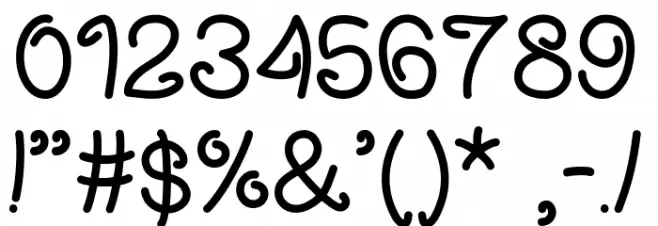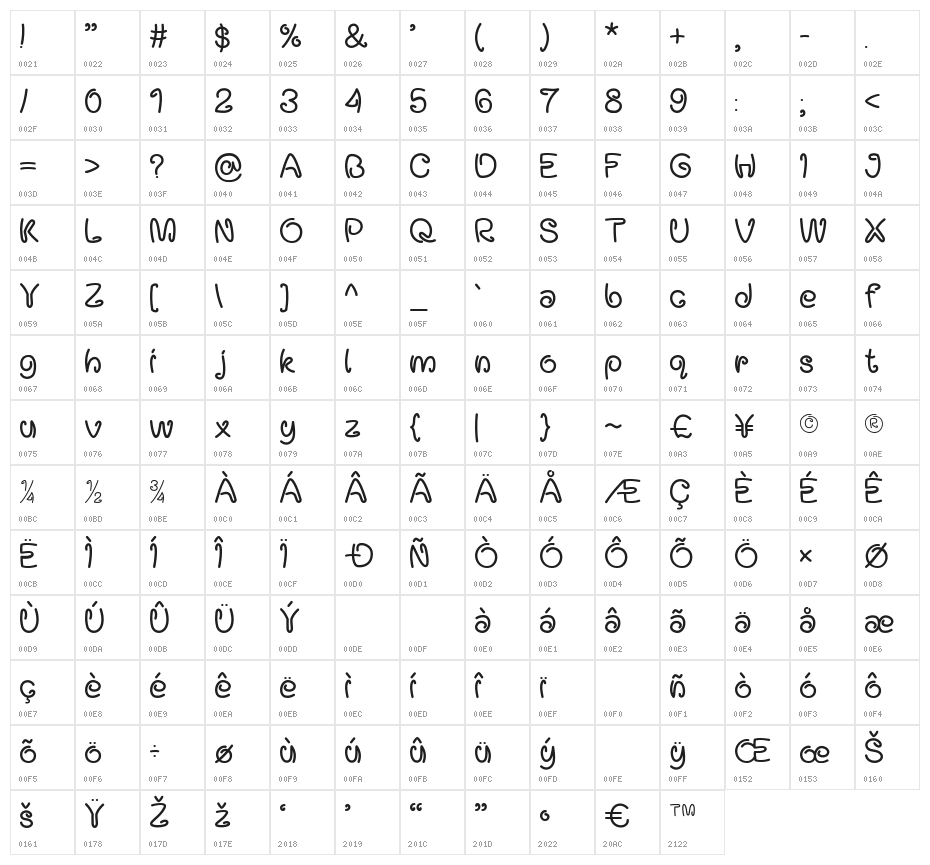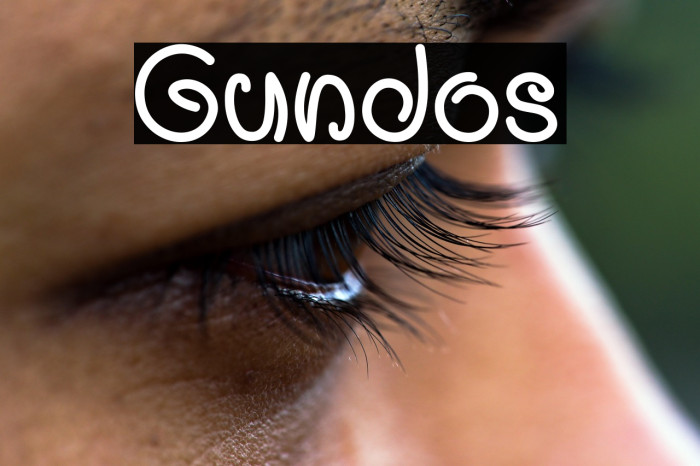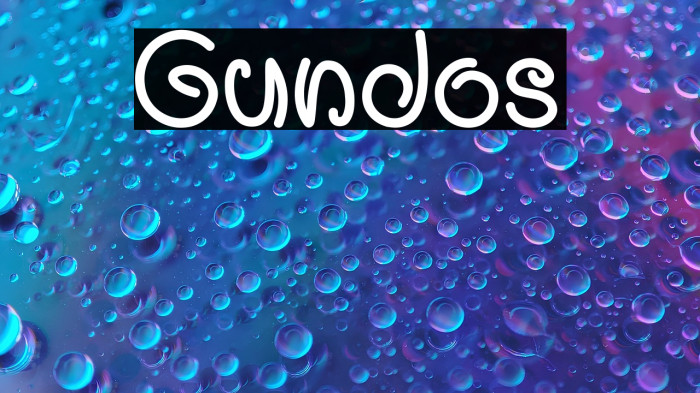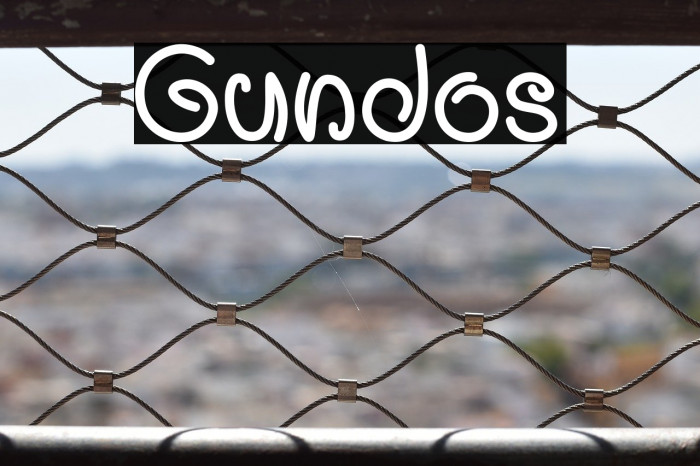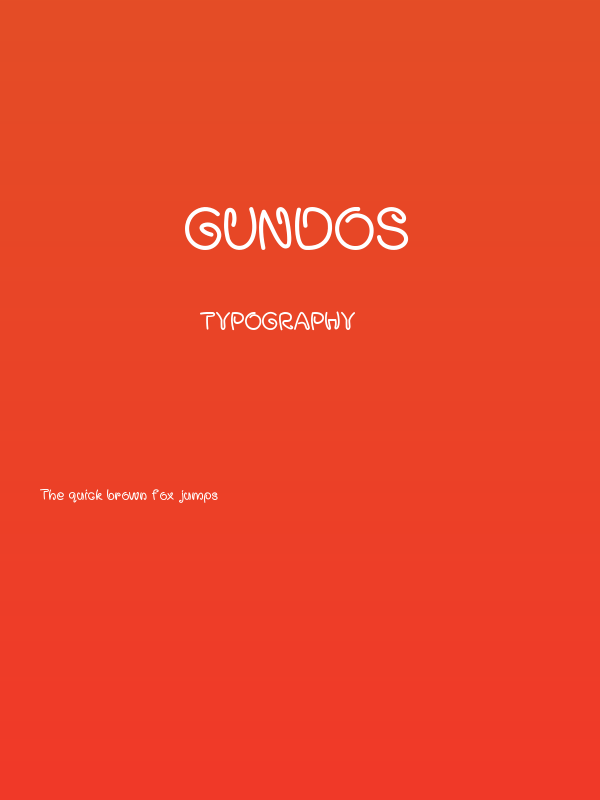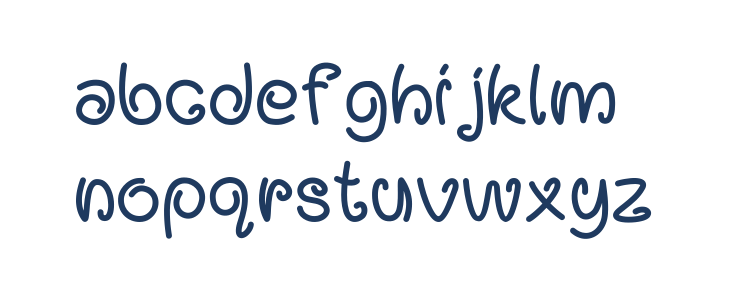
Gundos Font
Gundos Description
This playful and whimsical font features rounded, flowing characters that exude a sense of fun and creativity. The letters are bold and slightly irregular, giving them a hand-drawn appearance that adds a personal touch to any design. The uppercase and lowercase letters maintain a consistent style, with smooth curves and a friendly demeanor. Numbers and special characters are equally expressive, making this font versatile for various applications. Its unique style makes it stand out, perfect for projects that require a touch of personality and charm.
- Proposed Projects: Ideal for children's books, playful branding, greeting cards, and creative posters.